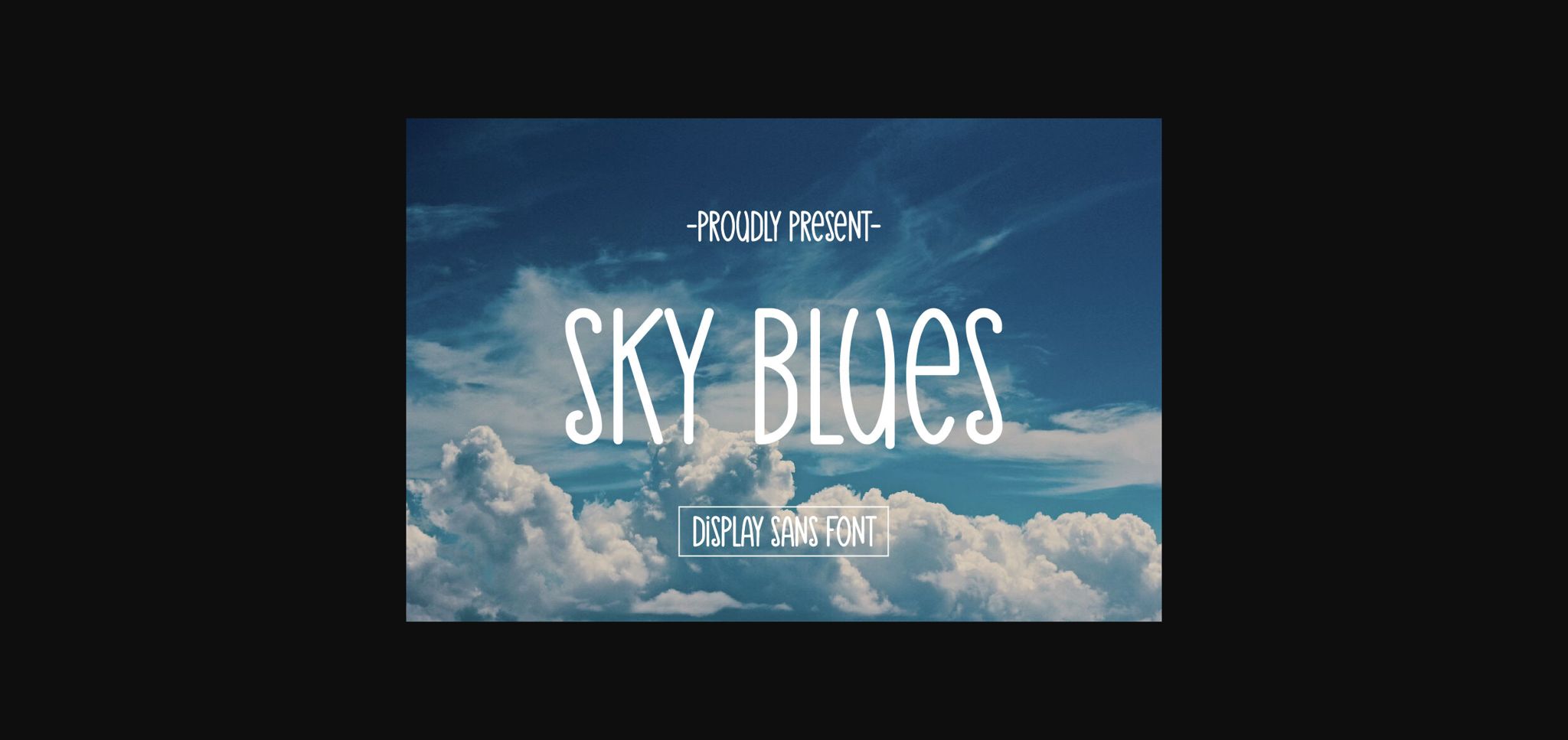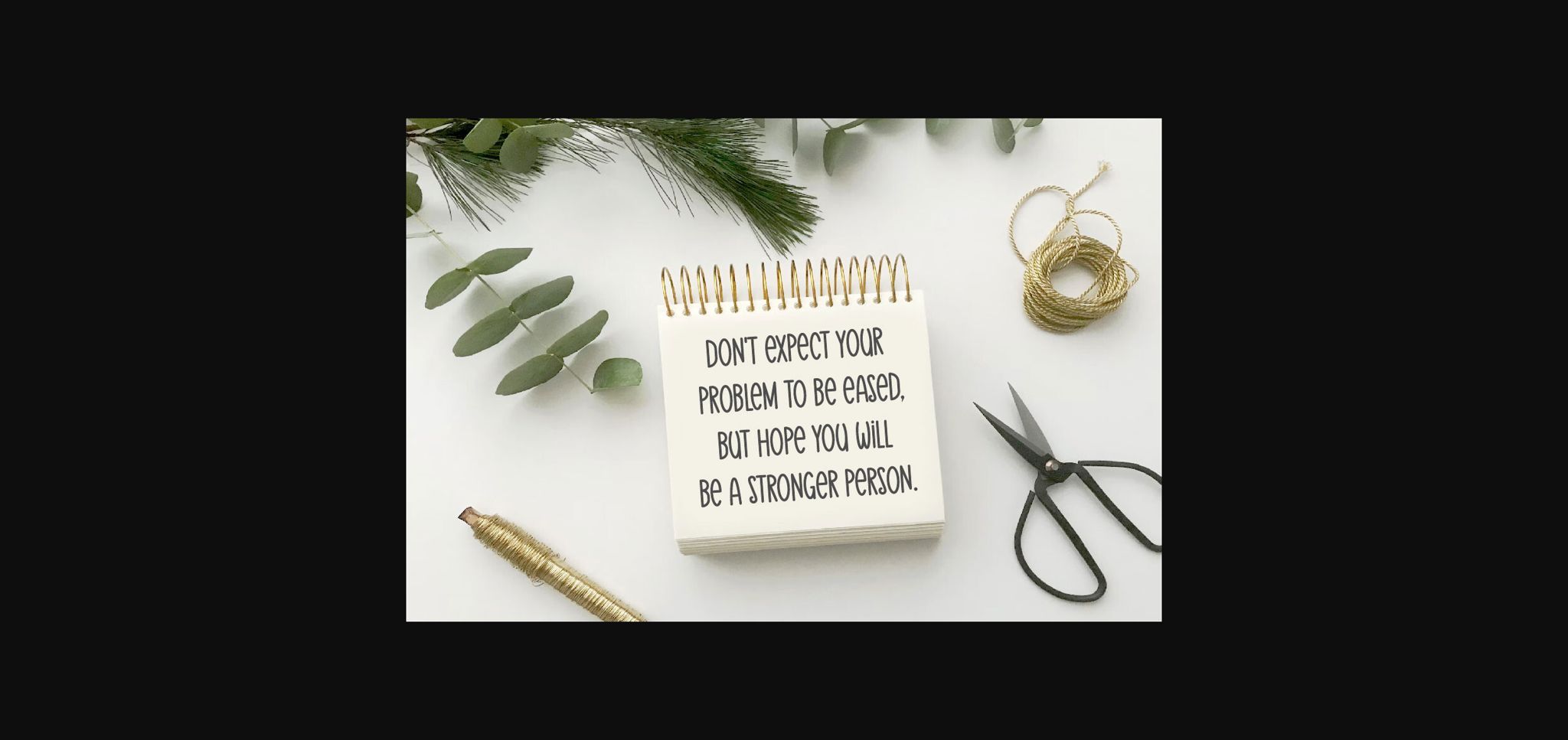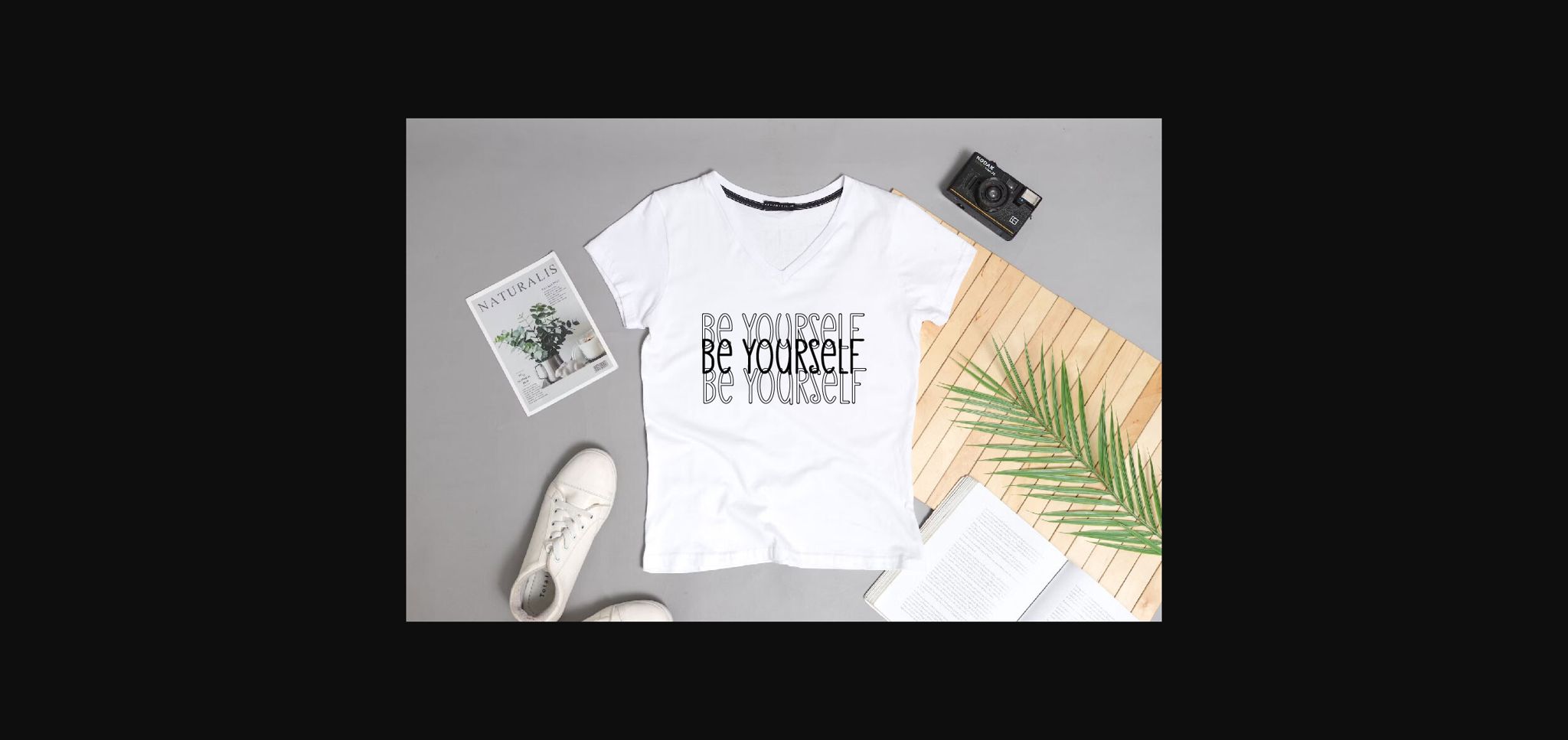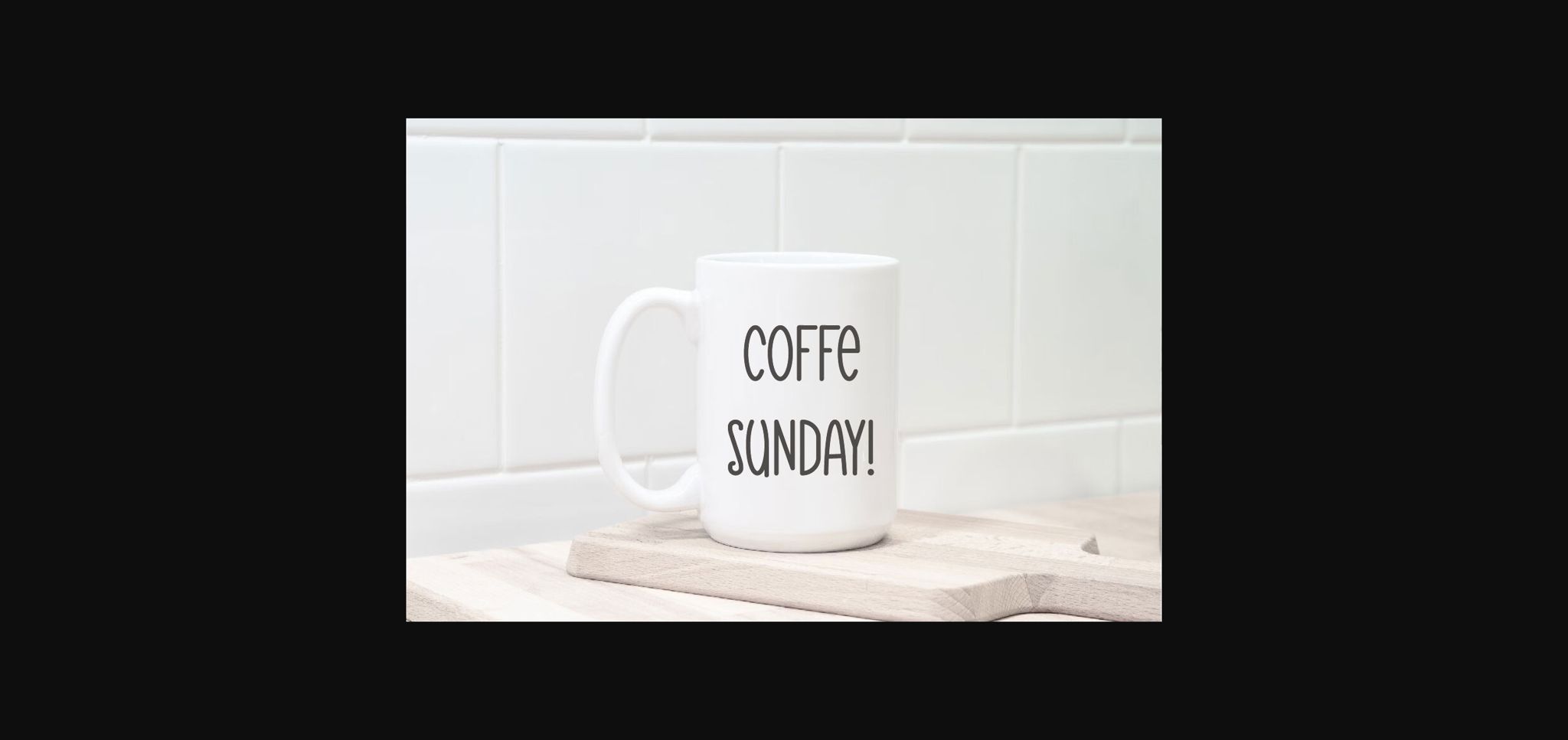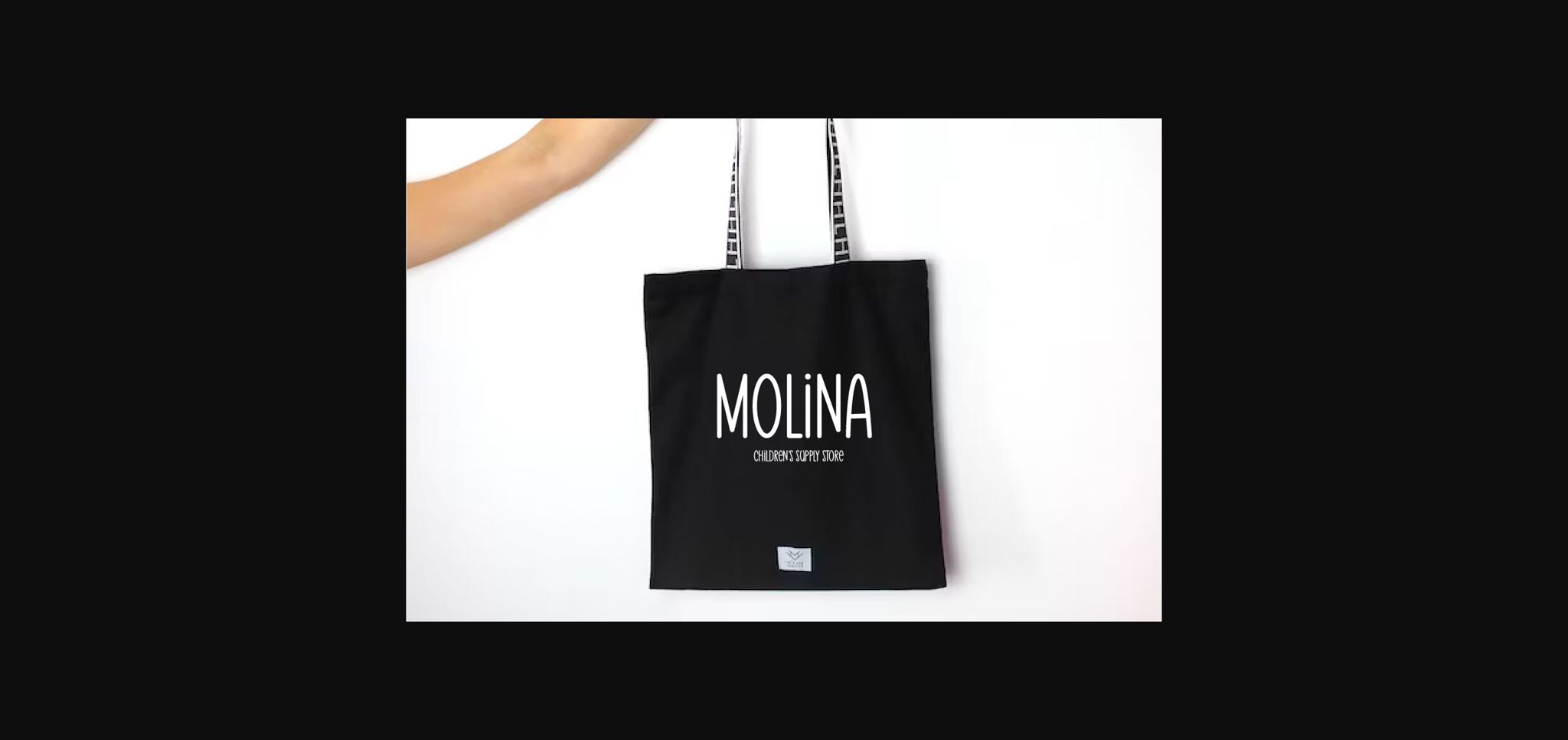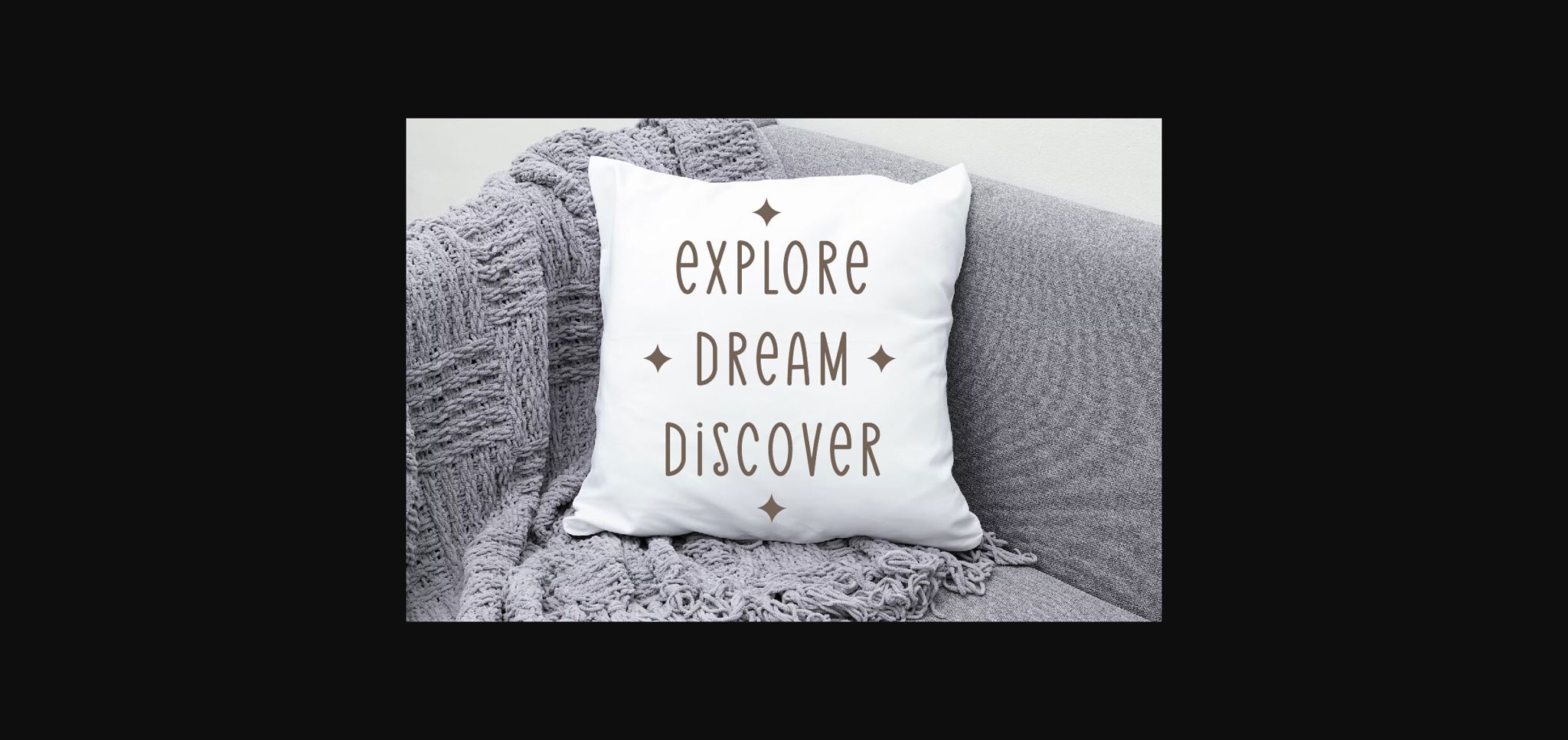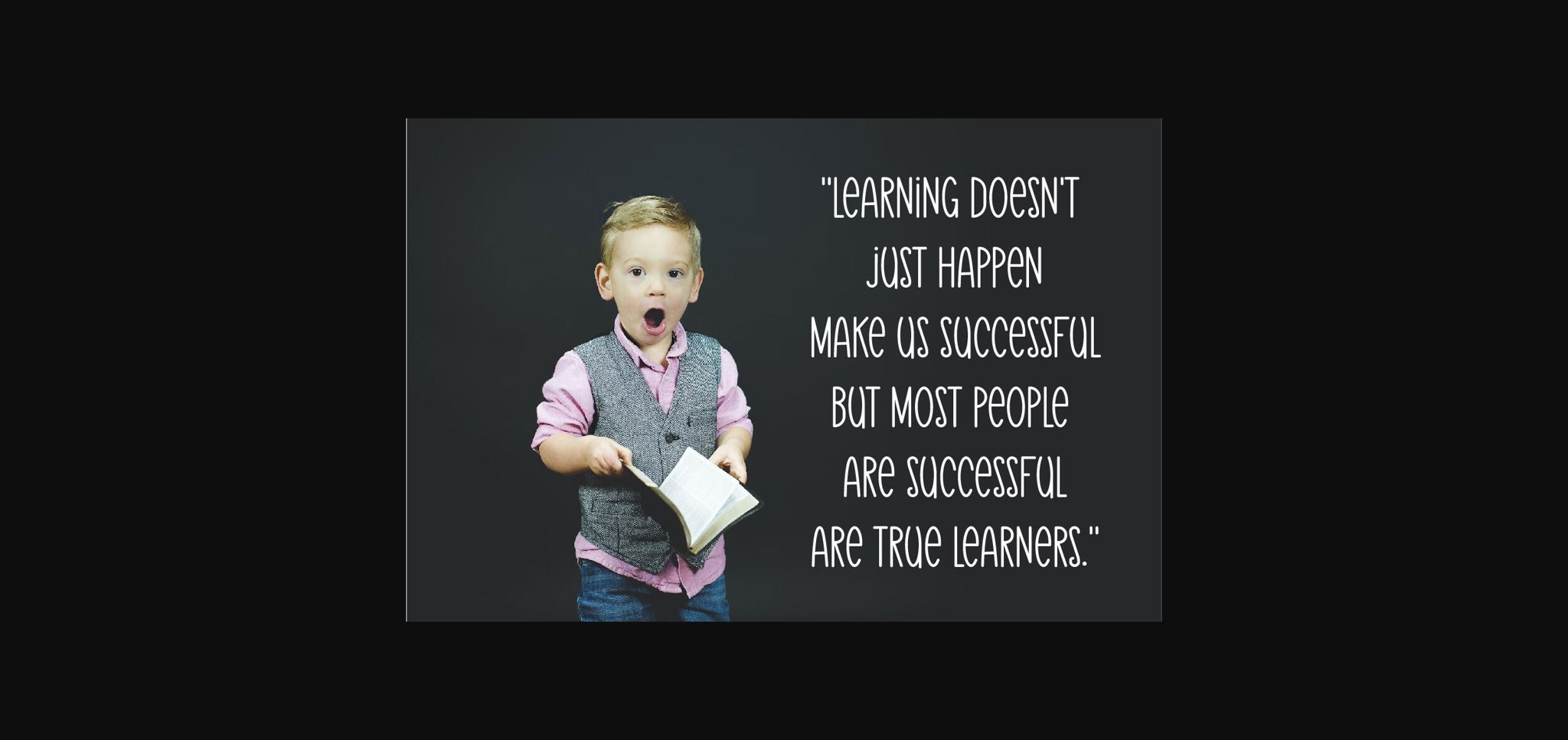
Sky Blues – Display Sans Font
A sans display font with a cute and fun style. This font is cool for quotes, t-shirts, decorations, pillows, mugs, posters, etc